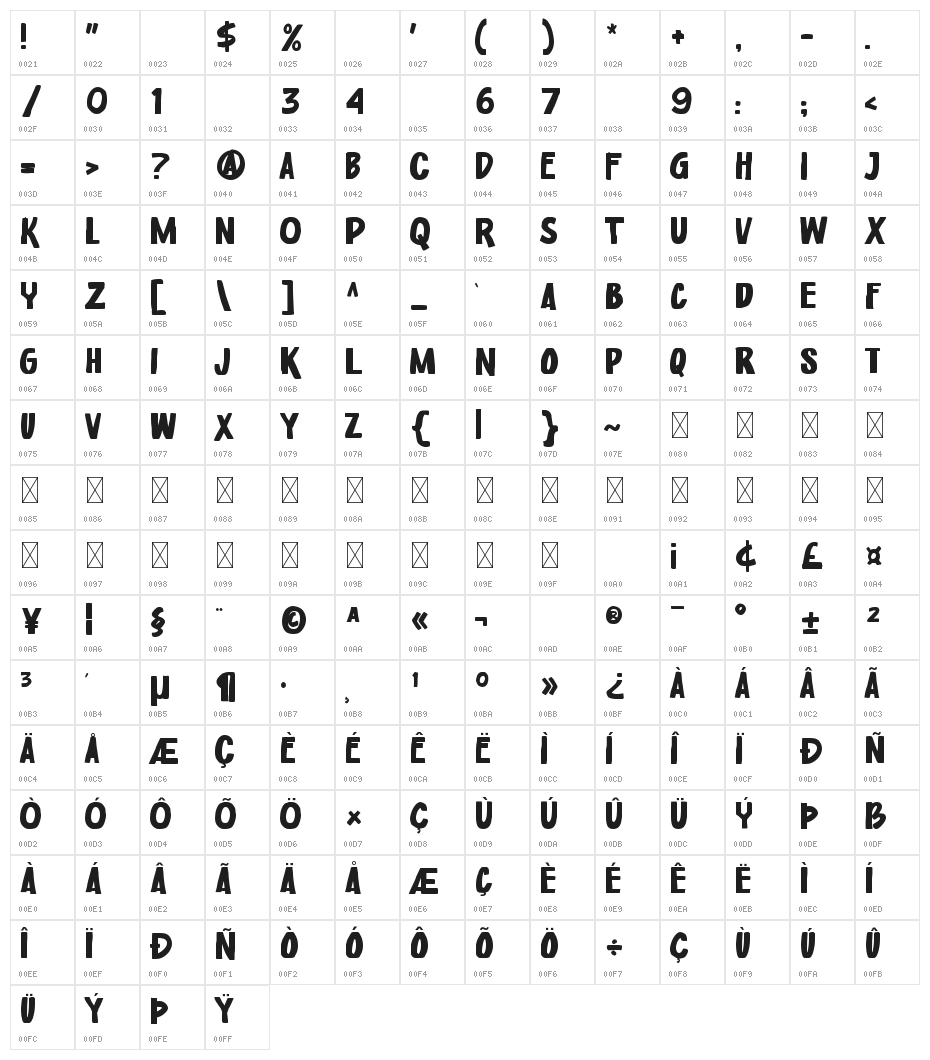
Worker Class Font
Worker Class Description
This font exhibits a bold and robust style, characterized by thick strokes and a slightly uneven, hand-drawn appearance. The uppercase letters are prominent and assertive, with a playful yet strong presence. The lowercase letters maintain the same boldness, offering a consistent look throughout. Numbers and special characters are equally bold, ensuring they stand out in any design. The overall aesthetic is casual and approachable, making it suitable for projects that require a touch of personality and flair. Its hand-crafted look adds a unique charm, perfect for creative and informal applications.
| Overall Style | Casual, Playful |
| Proposed Projects | Ideal for posters, branding, packaging, and any design needing a bold, informal touch. |